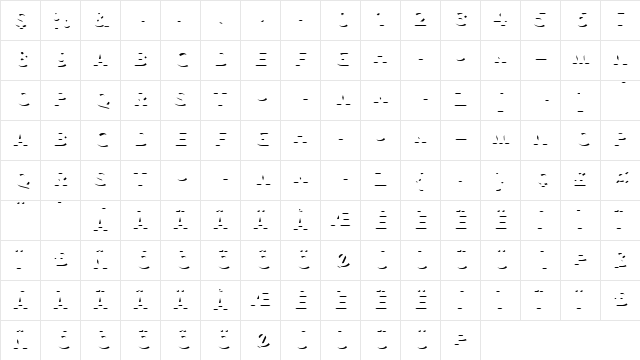
hustle 3 Regular
| Foundry | andhi yulianto ( great19 ) |
| Designer | andhi yulianto |
hustle 3 is a composed and adaptable typeface that performs quietly and consistently across a wide range of design contexts.